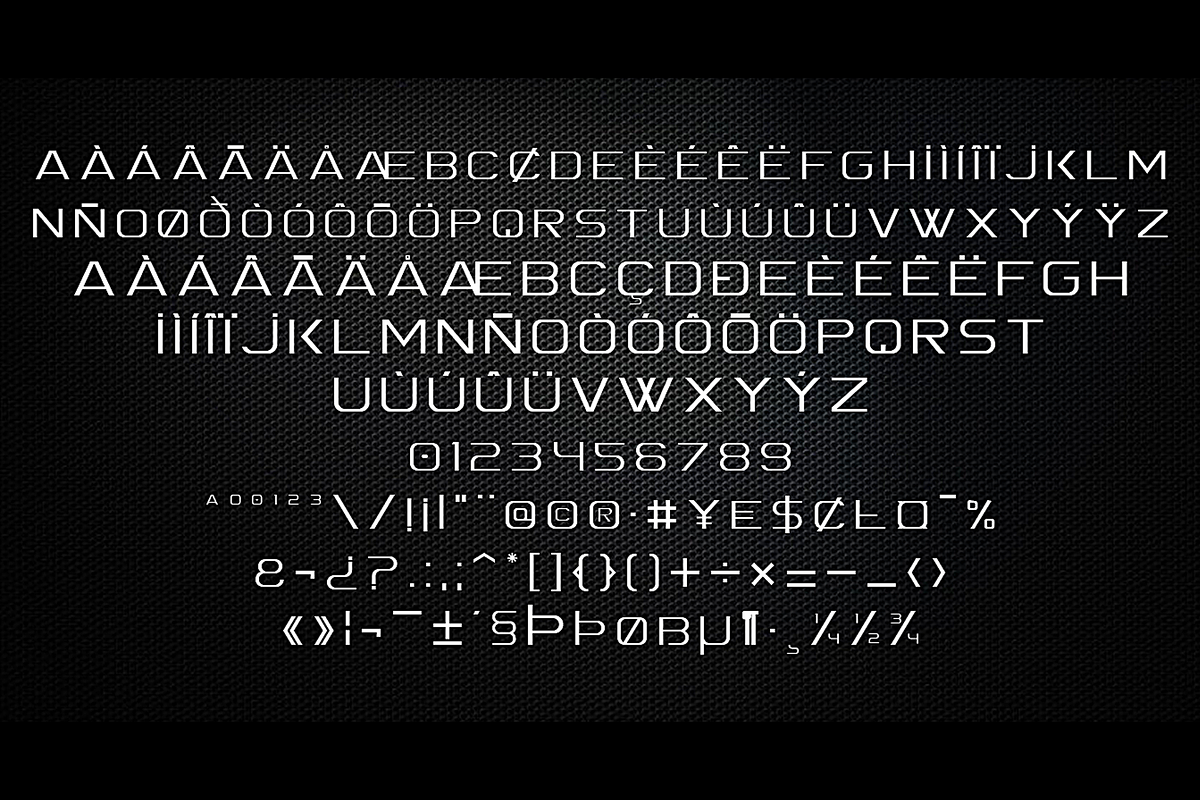
Spac3 Slim
Spac3 Slim by Qbotype Fonts is a font selected for branding, posters, packaging, typography.
- This typeface contains 230 characters, including uppercase lowercase, numbers and symbols, otf+ttf format.
Why Spac3 Slim is worth a look
Spac3 Slim by Qbotype Fonts fits naturally into Branding, posters, packaging, typography.